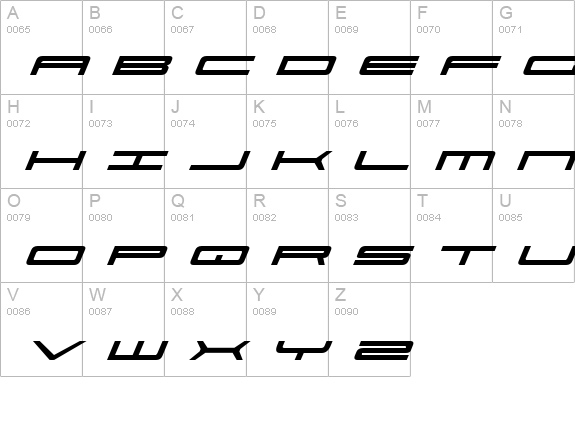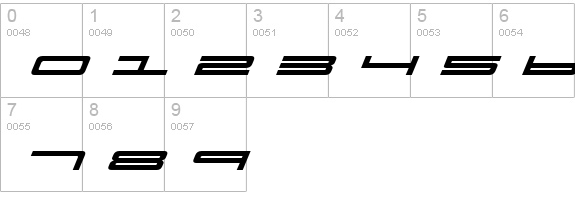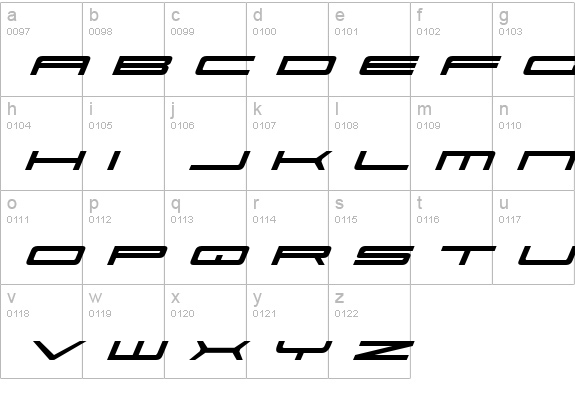
Ultra 911 Italic Font Details
Ultra 911 Italic is an extreme-weight, display, italic variant in the Ultra typeface family \xE2\x80\x94 well suited to extreme display use where maximum visual weight is required.
Ultra 911 Italic font is a stunning typeface that exudes elegance and sophistication. With its sleek and slender letterforms, this font adds a touch of modernity to any design project. Its unique italic style creates a sense of movement, making it perfect for conveying a dynamic and energetic feel. Designed with utmost precision and attention to detail, Ultra 911 Italic font is a true masterpiece. Its sharp and clean lines ensure legibility even at small sizes, making it suitable for both print and digital applications. Whether it's for branding, advertising, or editorial purposes, this font will captivate and engage your audience. One of the best features of Ultra 911 Italic font is that it is freely available to download at FontsMarket.com. This means that you can enhance your designs without spending a dime. It's a fantastic opportunity to access a high-quality typeface that will elevate your creative projects to new heights. With its versatility and timeless appeal, Ultra 911 Italic font is a must-have for designers and creatives alike. Whether used in headlines, body text, or even logos, it will effortlessly add a touch of sophistication and professionalism to any design. Download it today and unlock the possibilities of this remarkable font.